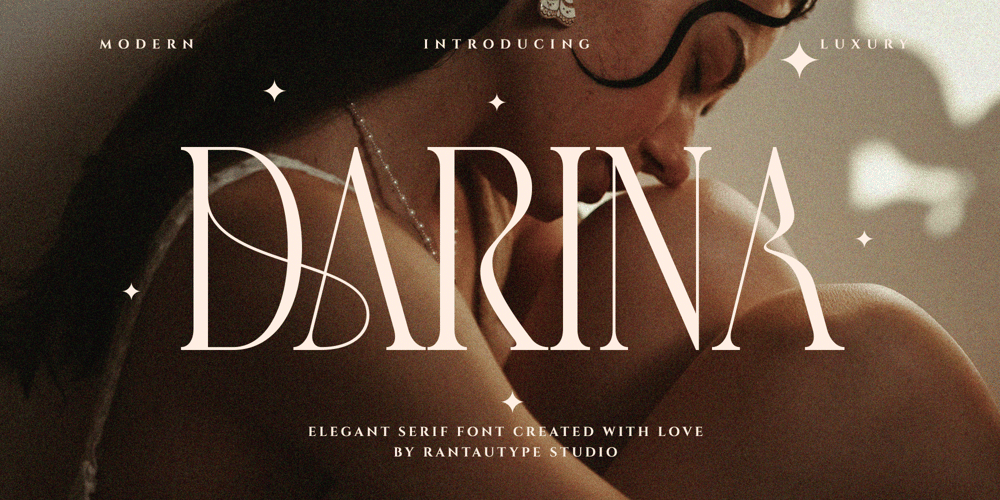
Darina
Darina font
Darina Font Family was designed by Yudi Pratama Chandra and published by RantauType. Darina contains 2 styles and family package options. Darina is a modern display serif font that embraces elegance and grace. Its delicate curves and refined details create a sense of sophistication and femininity. Darina brings a touch of charm and sophistication to branding, editorial designs, and more. We keep this font looks fashionable, elegant, luxury, premium, modern, catchy and easy to use. With its versatility and contemporary appeal. We love how ligature DA and HA work very premium and elegant.Darina is a beautiful choice for any creative endeavor, creating elegant, chic, lifestyle design such as logos, title, cover, branding, display and magazine, and more. Now you have more choice when using Darina for typography.Features: Standar letter A-Z and a-z Numberial and Functional Alternate and Ligature Works on PC & Mac Simple installations Accessible in Adobe Illustrator, Adobe Photoshop, Adobe InDesign, even work on Microsoft Word Fonts include Multilingual Support for: Afrikaans, Albanian, Asu, Basque, Bemba, Bena, Breton, Chiga, Cornish, Dutch, English, Estonian, Filipino, Finnish, Friulian, Galician, Gusii, Indonesian, Irish, Italian, Kabuverdianu, Kalenjin, Kinyarwanda, Luo, Luxembourgish, Luyia, Machame, Makhuwa-Meetto, Makonde, Malagasy, Manx, Morisyen, North, Ndebele, Nyankole, Oromo, Portuguese, Quechua, Romansh, Rombo, Rundi, Rwa, Samburu, Sango, Sangu, Scottish, Gaelic, Sena, Shambala, Shona, Soga, Somali, Spanish, Swahili, Swedish, Swiss, German.Thank you for your purchase!Hope you enjoy with our font!